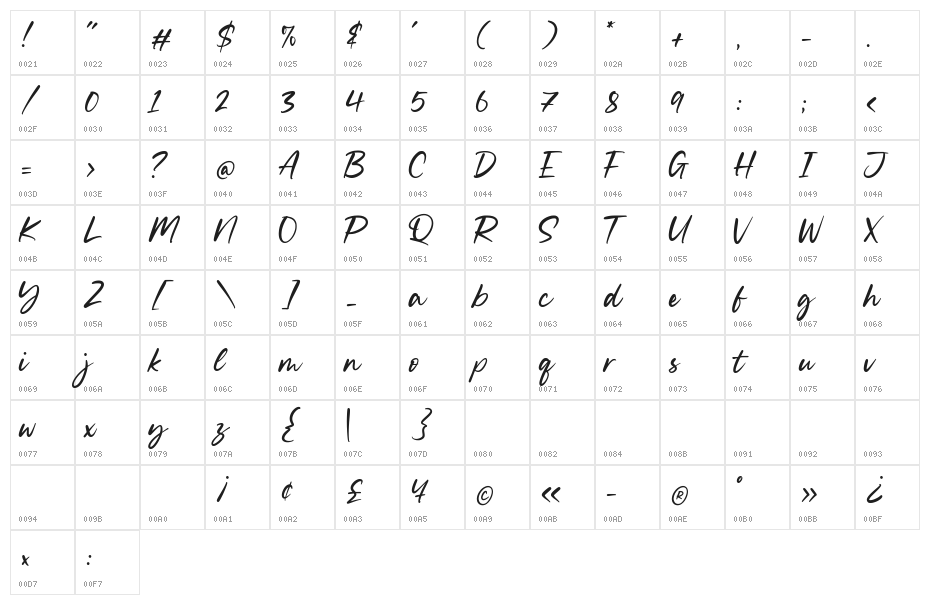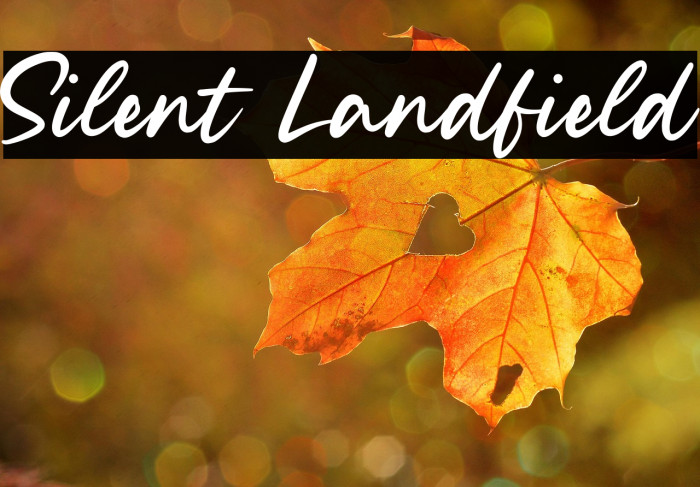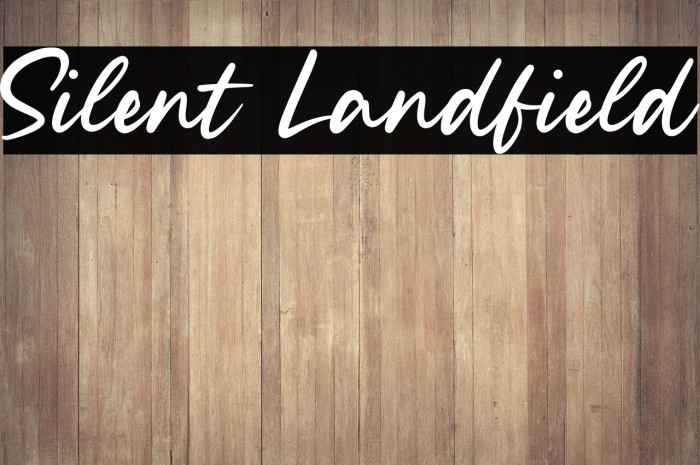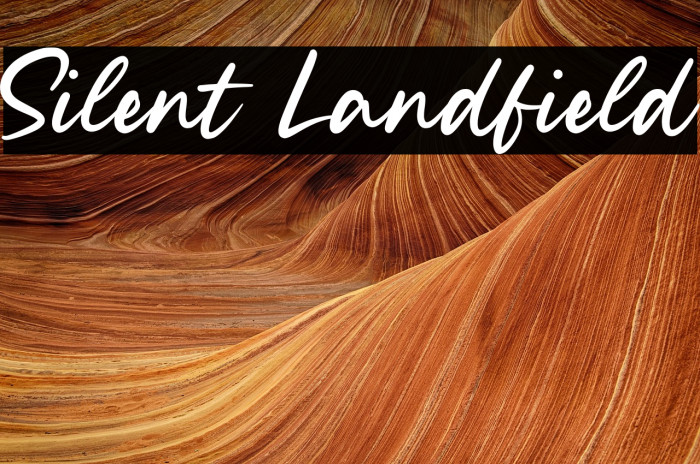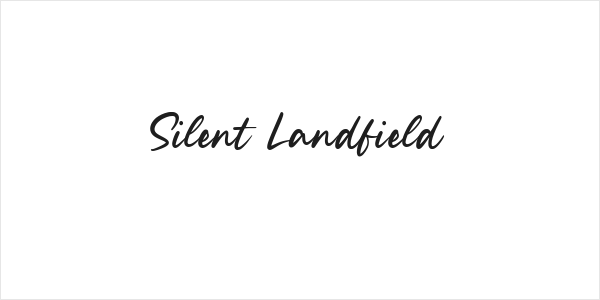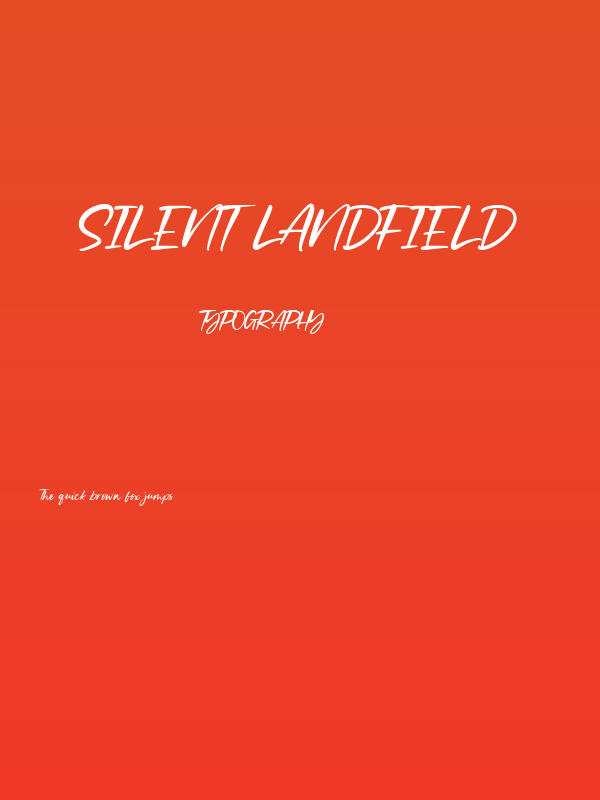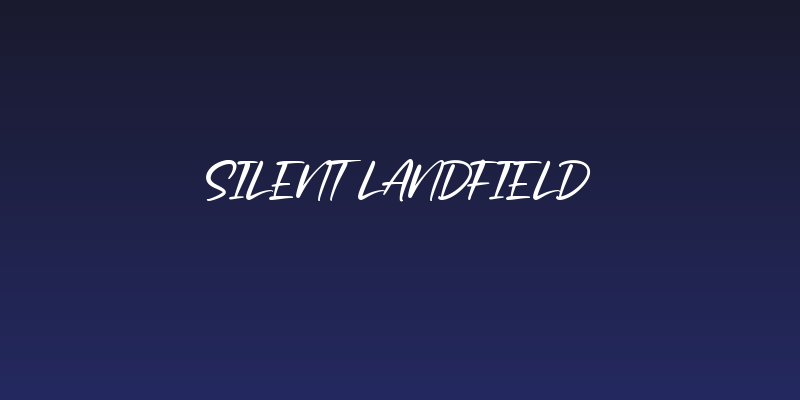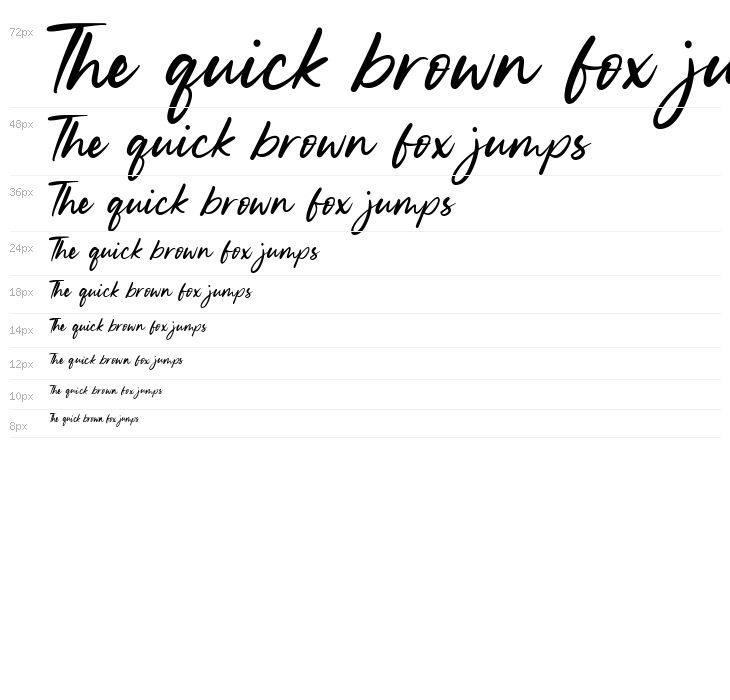
Silent Landfield Font
Silent Landfield Description
This font features a dynamic and fluid script style, characterized by its elegant and flowing letterforms. The strokes are smooth and connected, giving it a handwritten appearance that exudes a sense of personal touch and creativity. The uppercase letters are bold and slightly slanted, while the lowercase letters maintain a consistent flow with subtle variations in stroke width. The numerals and special characters are designed to complement the overall style, maintaining the same fluidity and elegance. This font is perfect for projects that require a personal and artistic touch, such as invitations, greeting cards, and branding materials.
| Proposed Projects | Ideal for invitations, greeting cards, branding, and artistic projects. |